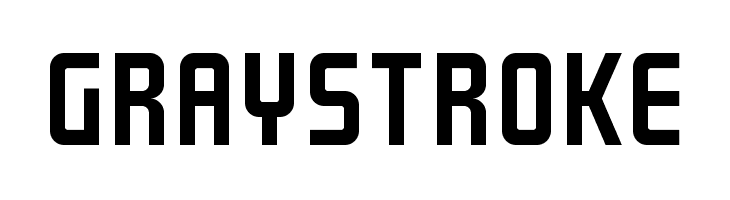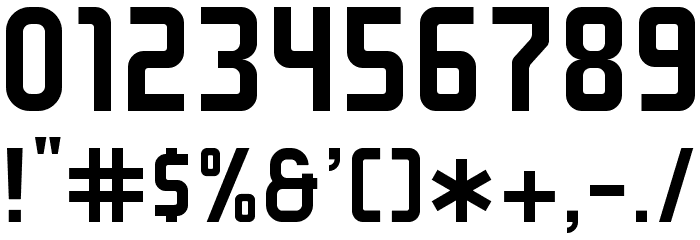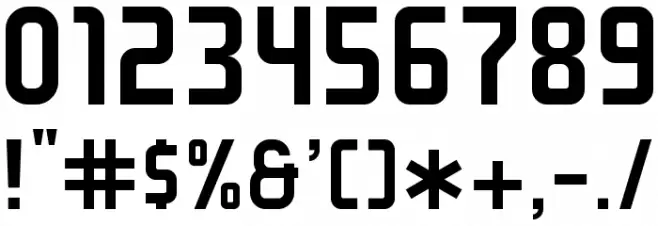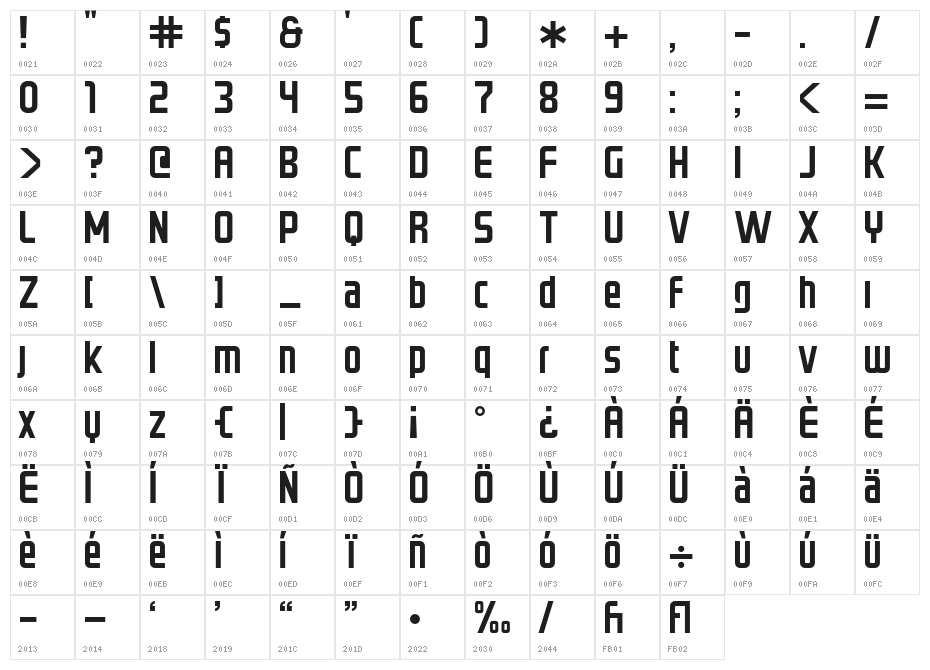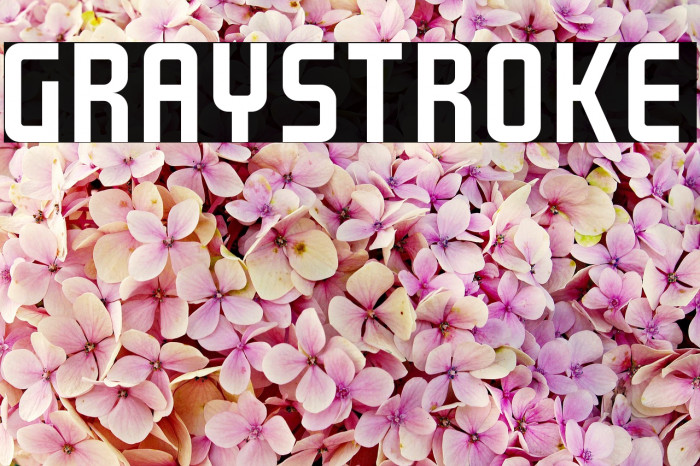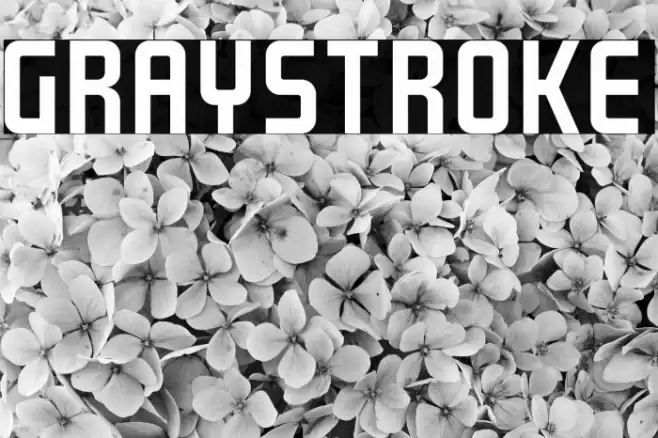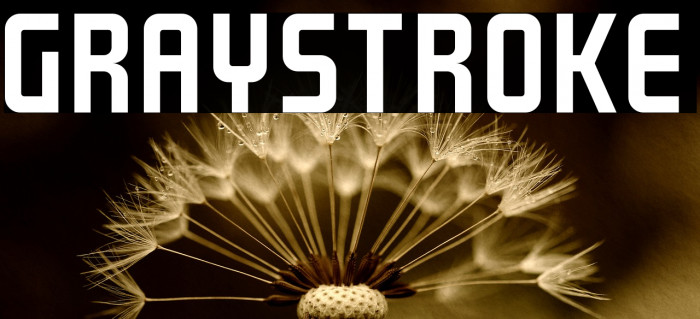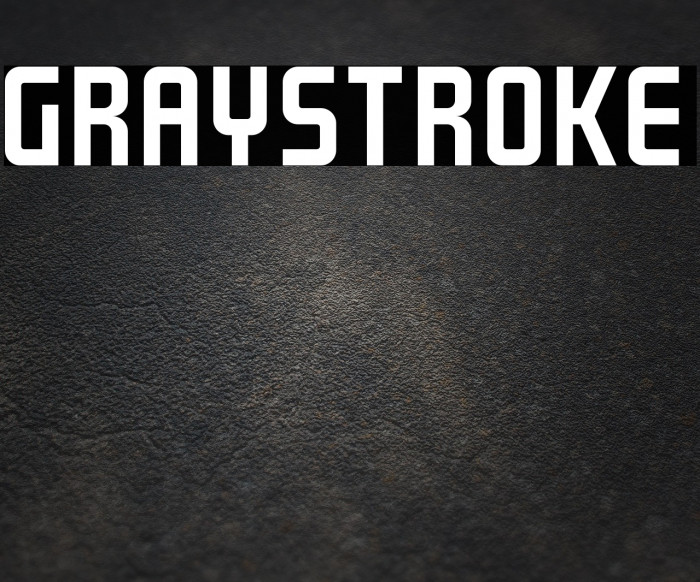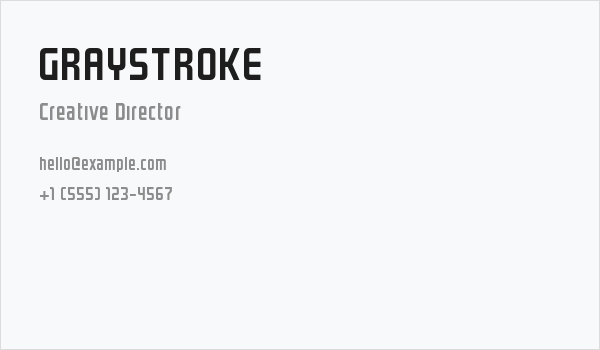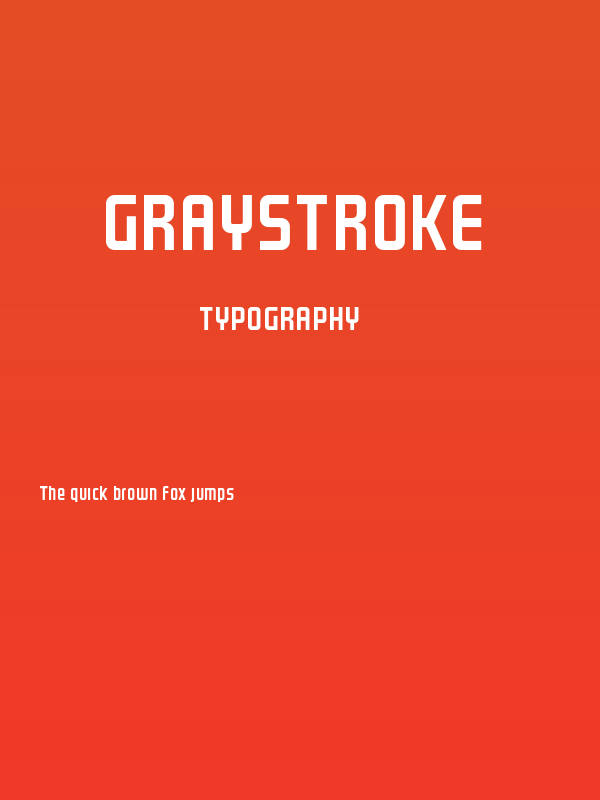
GRAYSTROKE Font
GRAYSTROKE Description
This font features a bold and modern design with a geometric structure. The characters are uniform in width, providing a monospaced appearance that ensures consistency across all letters and numbers. The uppercase and lowercase letters are well-defined, with sharp angles and clean lines that give a contemporary feel. The numerals are distinct and easy to read, maintaining the same boldness as the alphabetic characters. Special characters are included, each designed to match the overall aesthetic of the font. This font is versatile, suitable for various design projects that require a strong and modern typeface.
| Proposed Projects | Ideal for branding, headlines, posters, and digital interfaces. |